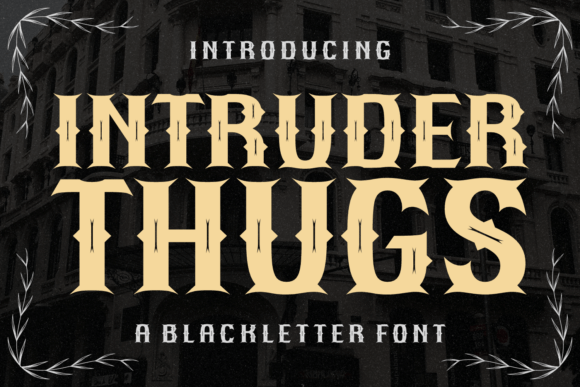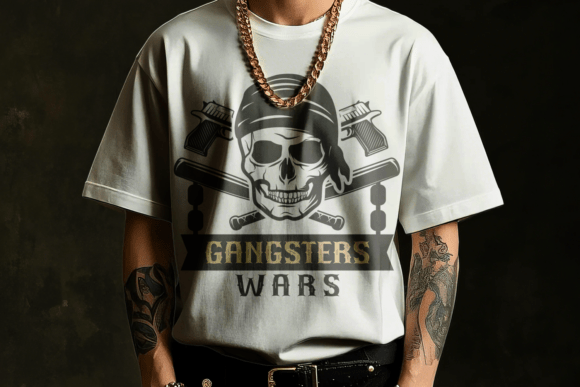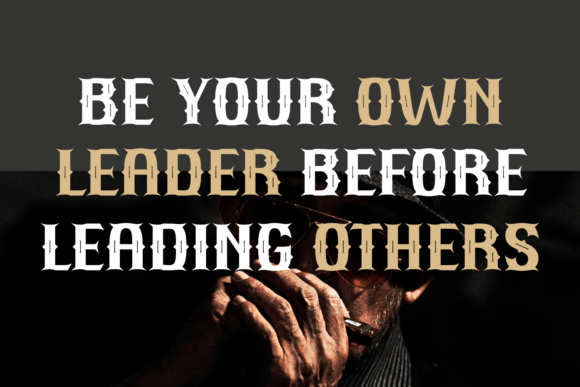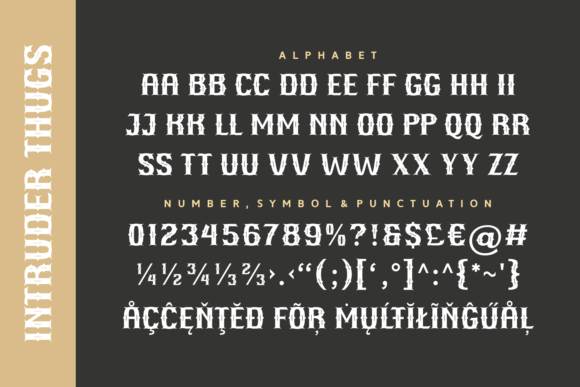
Unleash the Rebel Within
You know that moment when you’re brainstorming a new project and you need a font that screams ‘I’m here to shake things up’? For designers, finding the perfect font can be a game-changer. It’s the difference between a design that fades into the background and one that grabs attention and refuses to let go.
Enter the Intruder Thugs Font, a gritty blackletter font that’s not afraid to get a little rough around the edges. With its classic gothic styling and urban street attitude, it’s the perfect choice for designers looking to bring a rebellious tone to their work. From underground apparel to hip-hop branding, streetwear, and music-related projects, the Intruder Thugs Font is the ultimate partner in crime for any bold design project.
Intruder Thugs Font Key Features
- Font Family: Intruder Thugs Font
- Unique Characteristic: Distressed and gritty texture, perfect for creating a bold and edgy look
Intruder Thugs Font Review
Overall, I think Intruder Thugs Font is a unique and interesting choice for designers looking to create a bold, edgy feel in their projects. Here’s what I think works well: ✨
- Its gritty, distressed aesthetic can be really effective in conveying a sense of intensity or urgency.
- The font’s irregularities and imperfections can add a touch of realism to designs, making them feel more handmade or DIY.
- It’s a great choice for designers who want to create a sense of tension or conflict in their work.
However, there are also some limitations to consider: ⚠️
- The font’s distressed aesthetic can be overwhelming or difficult to read in certain contexts.
- It may not be suitable for designs where legibility is a top priority.
- The font’s irregularities can sometimes make it difficult to achieve a consistent look or feel.
Overall, I think Intruder Thugs Font is a solid choice for designers who want to create bold, edgy designs. While it may not be suitable for every project, it can be a great option for designers who want to add some grit and intensity to their work.
For best results, use the font for bold and edgy designs, such as posters, flyers, or social media graphics.
For best results, use the font for custom typography projects, such as logo design or custom graphics.
For best results, use the font for presentations or documents that require a bold and edgy tone.
The Intruder Thugs Font is ideal for:
- Edgy and bold designs
- Posters and flyers
- Logo design
- Custom graphics
- Presentations and documents that require a bold tone
Remember to always use the font in a way that aligns with your brand’s tone and style.